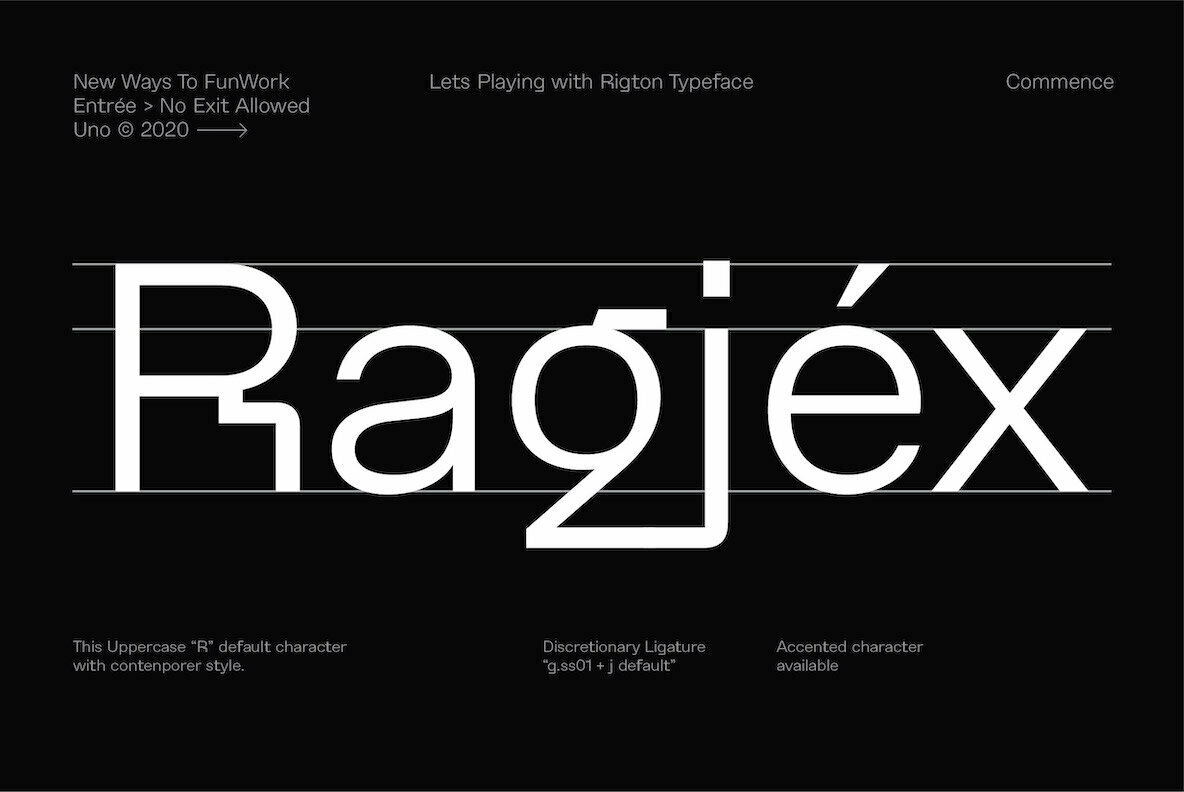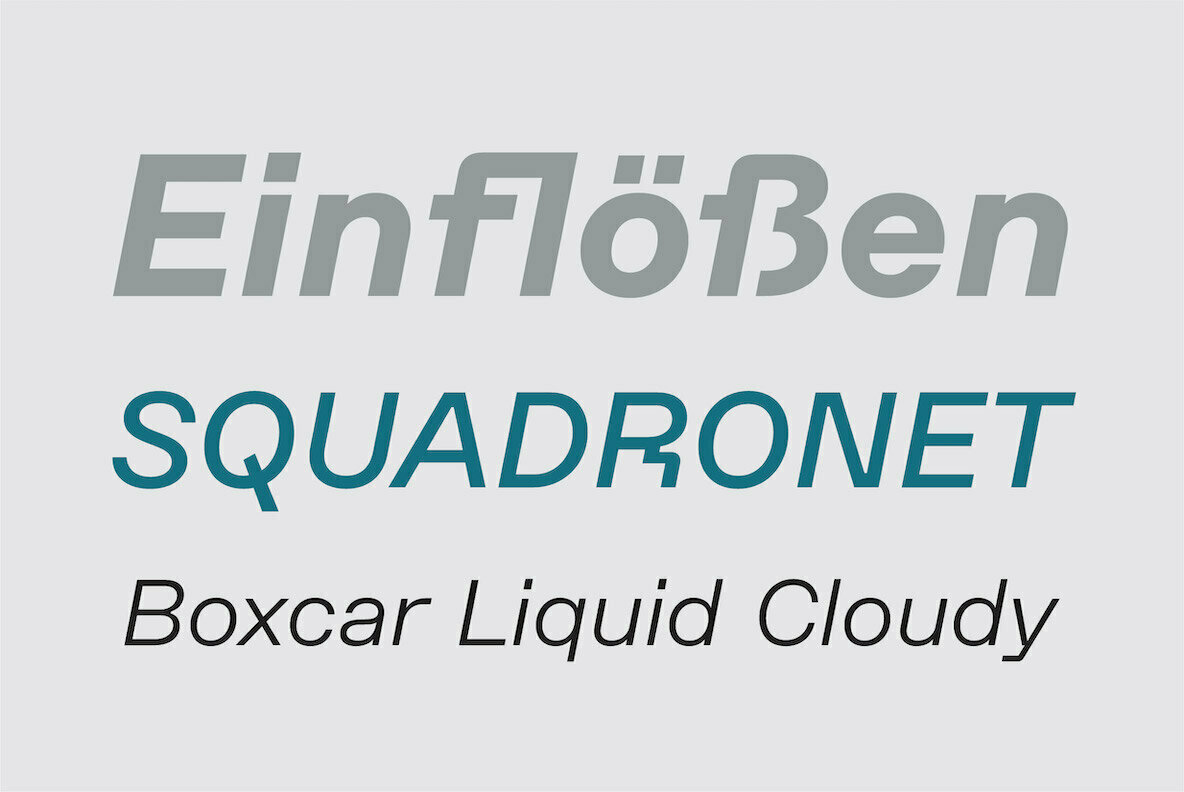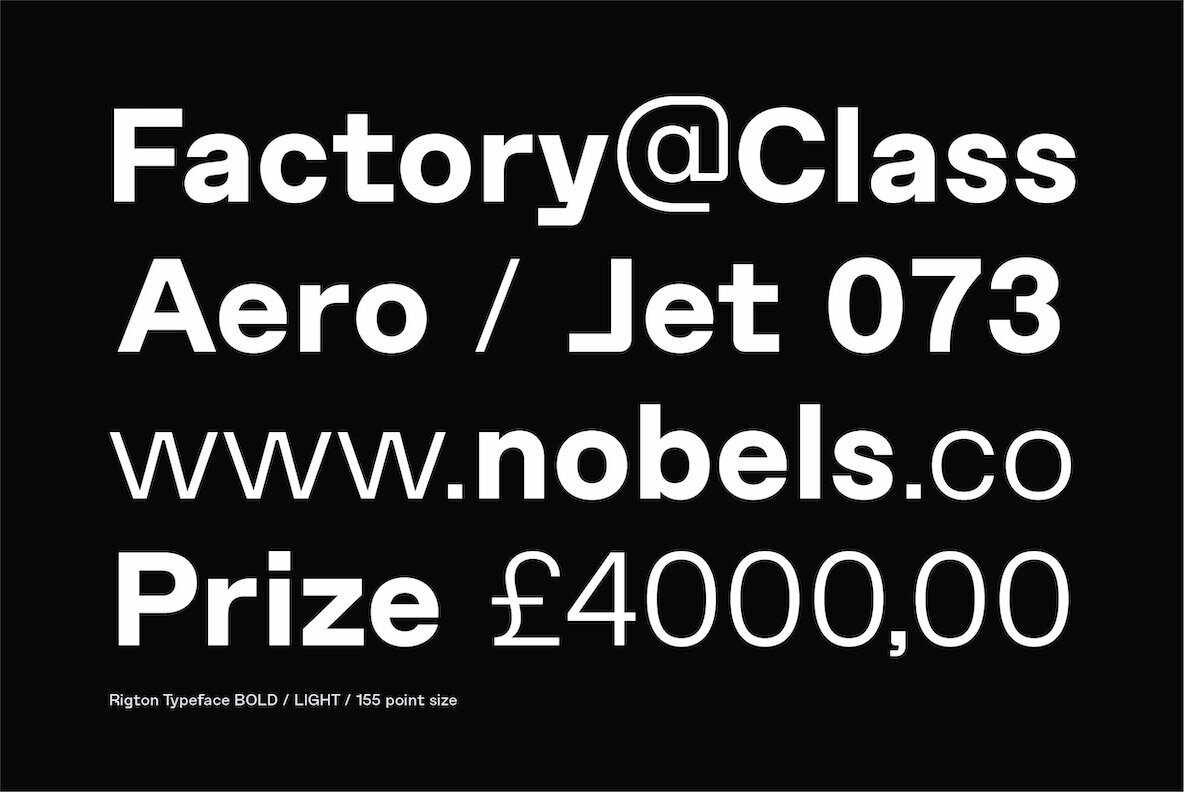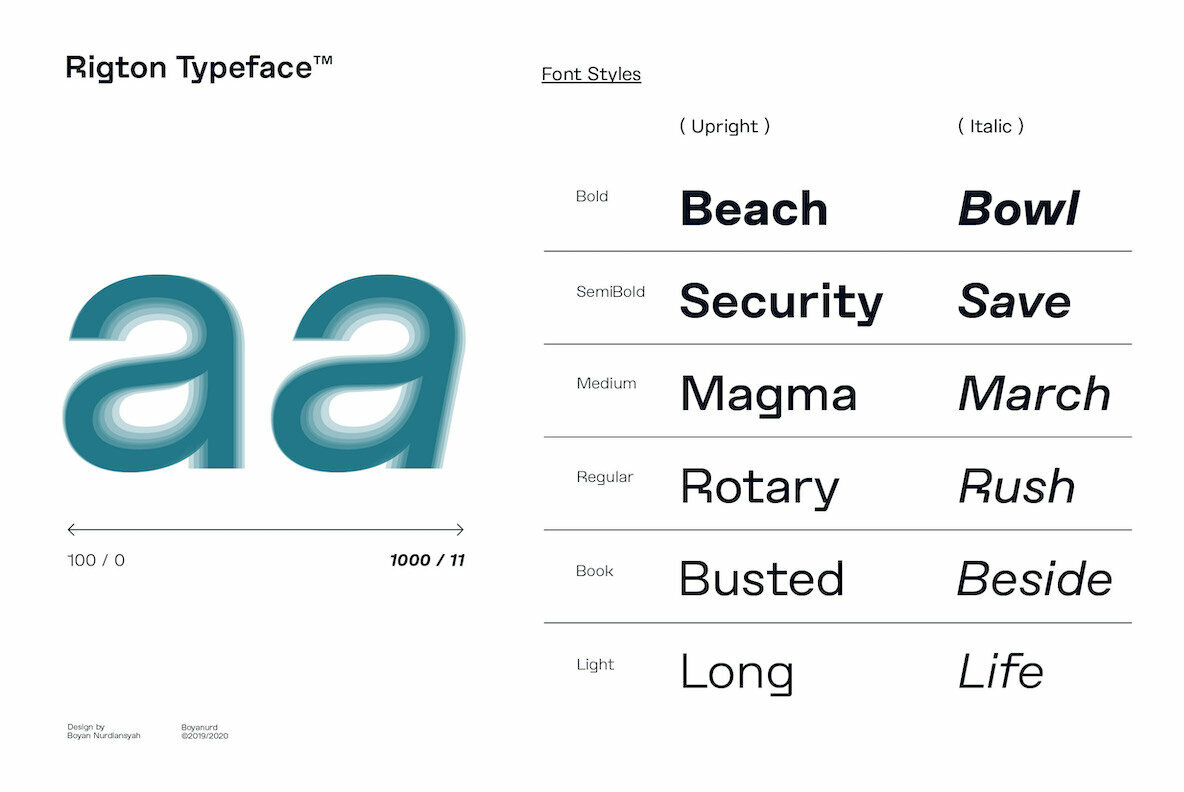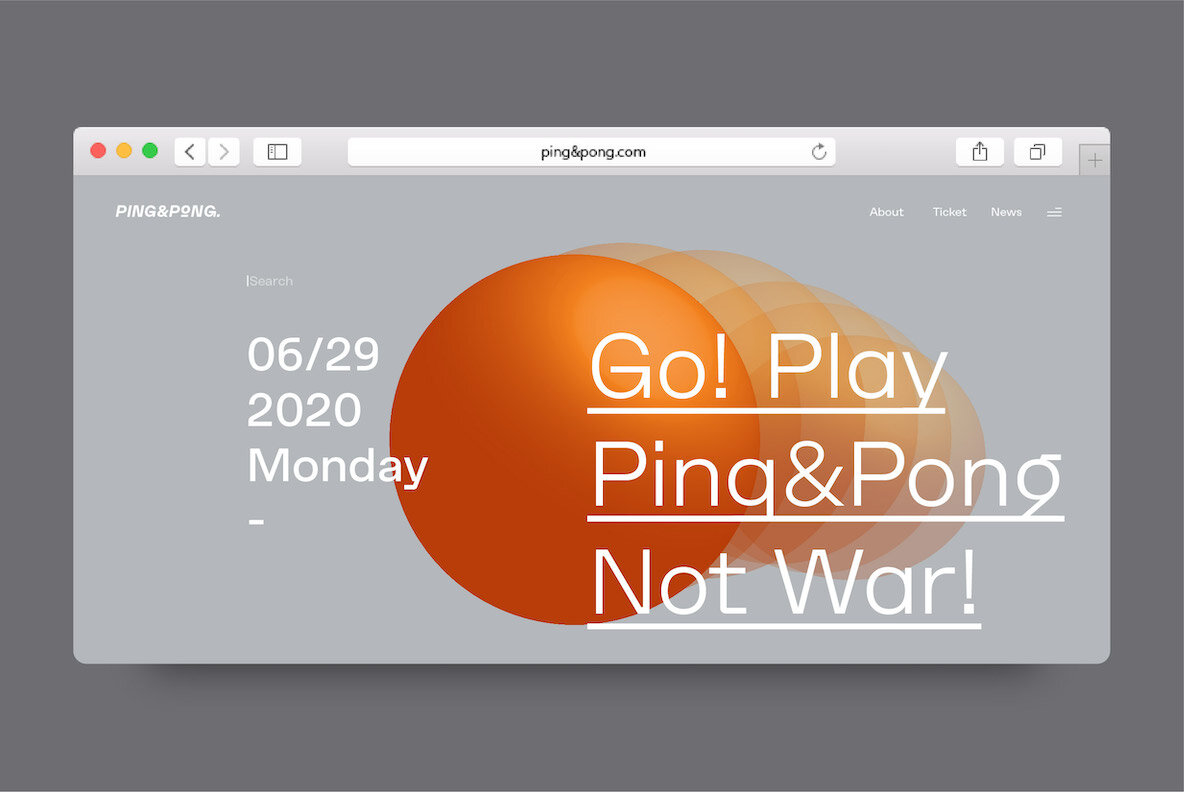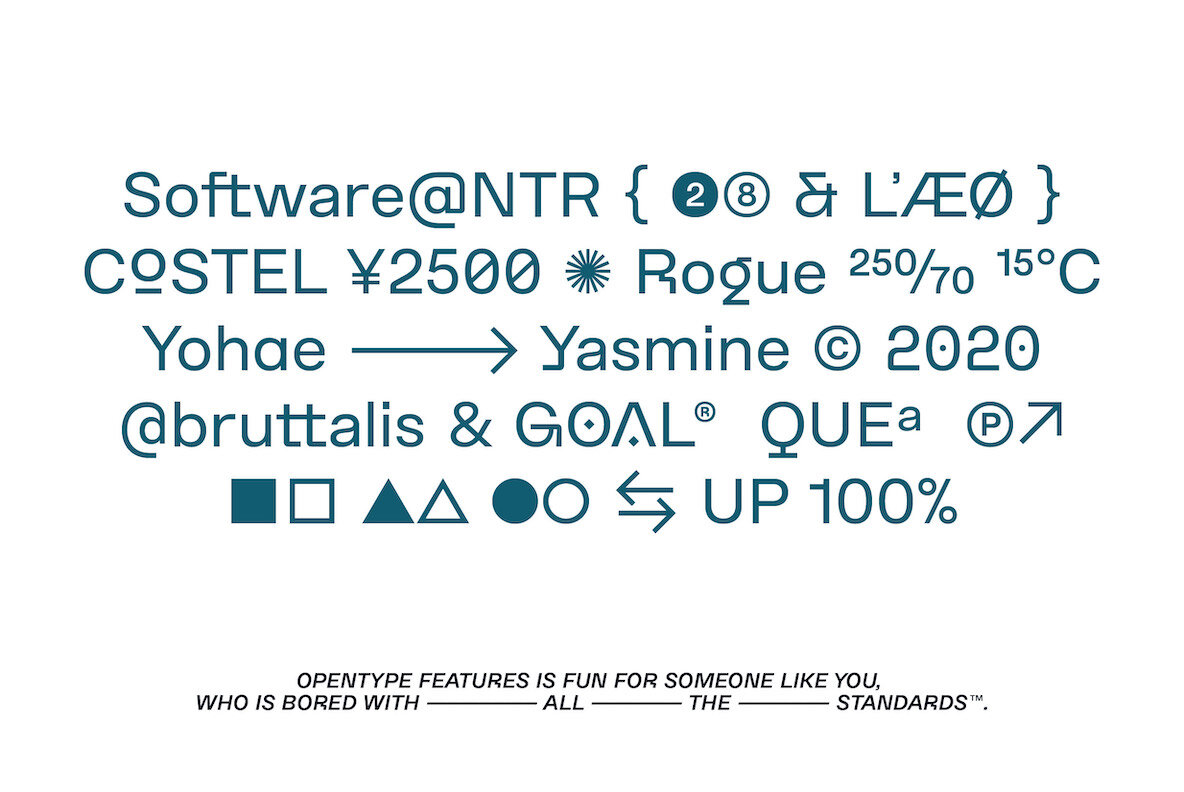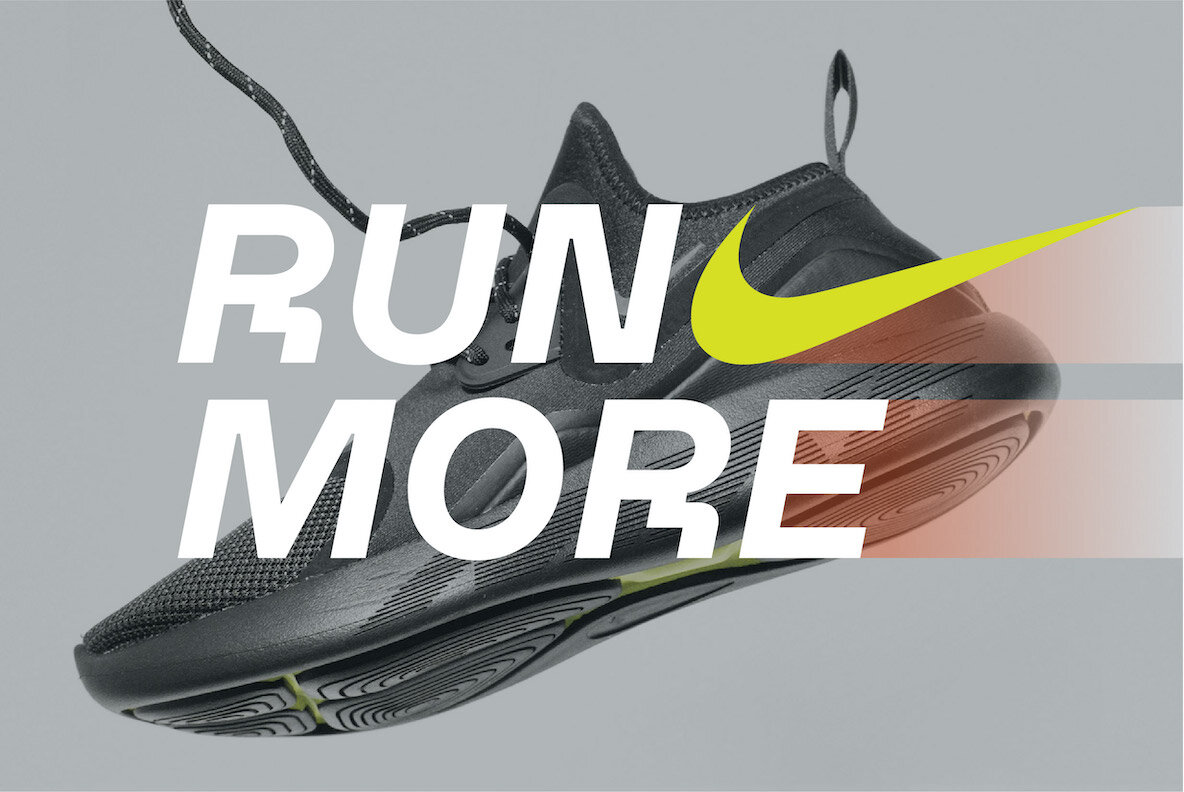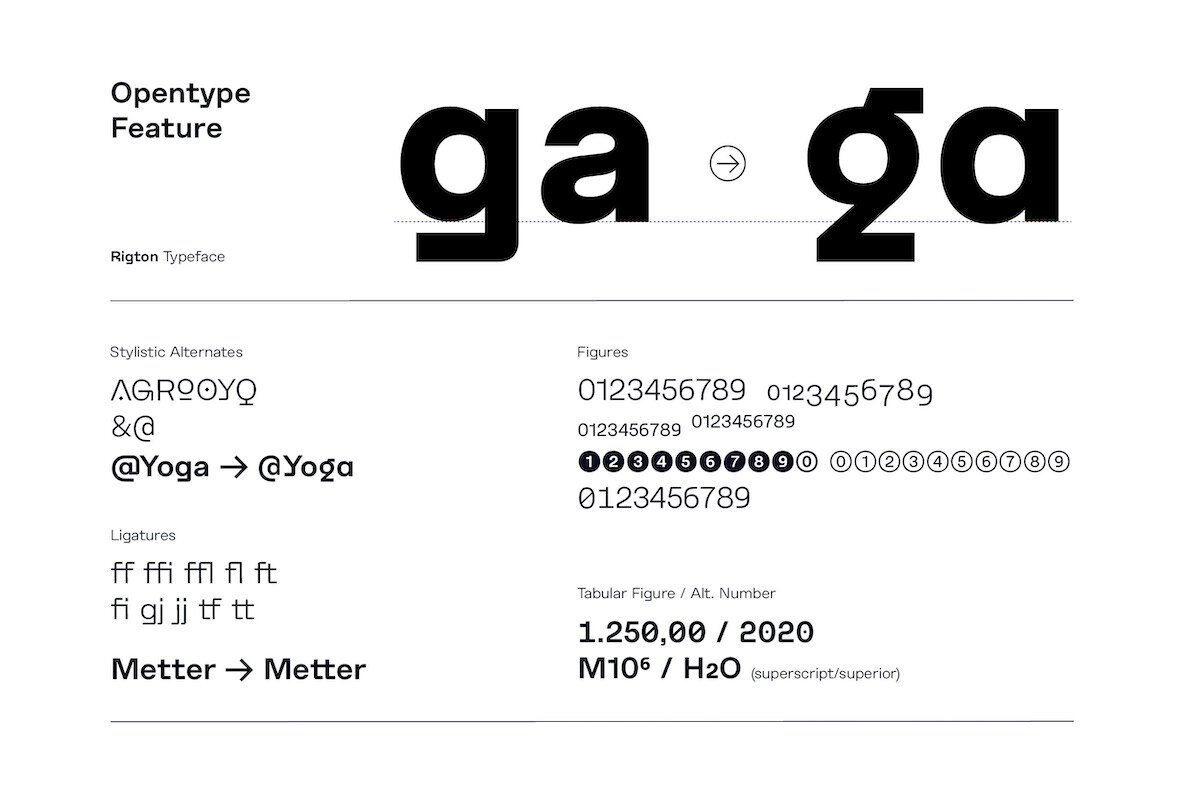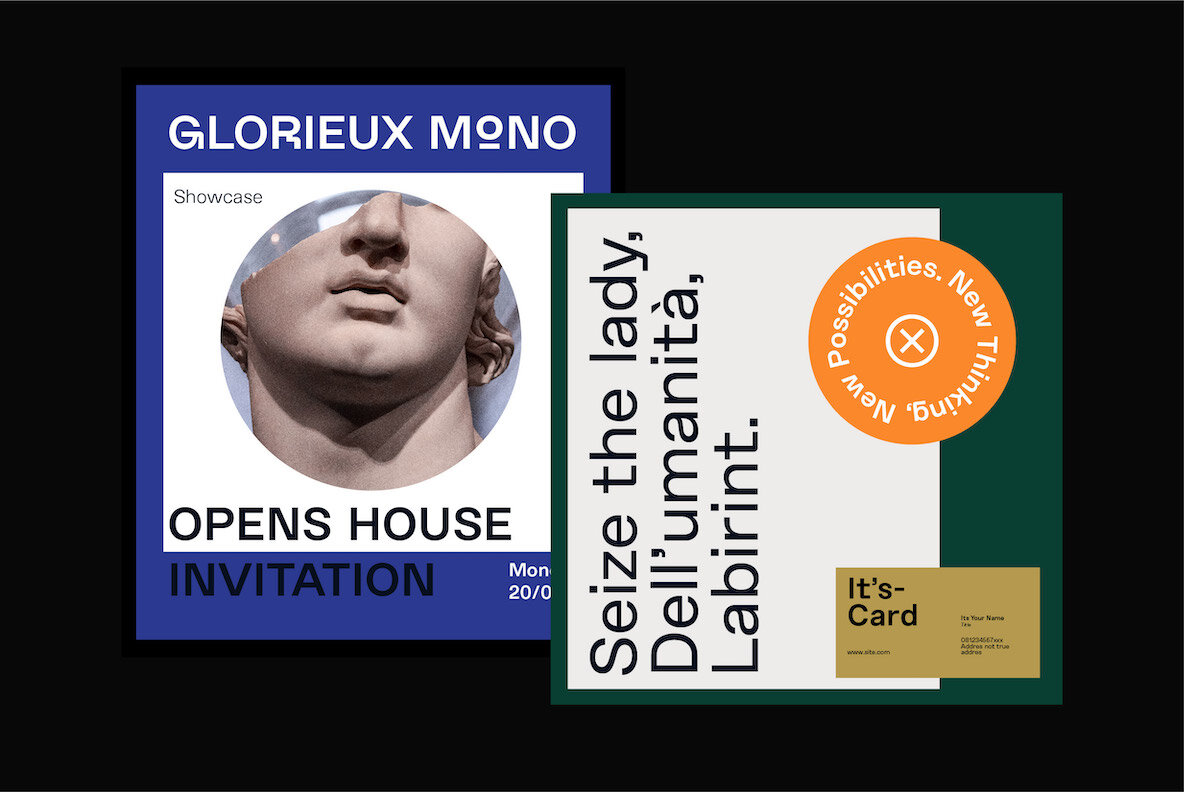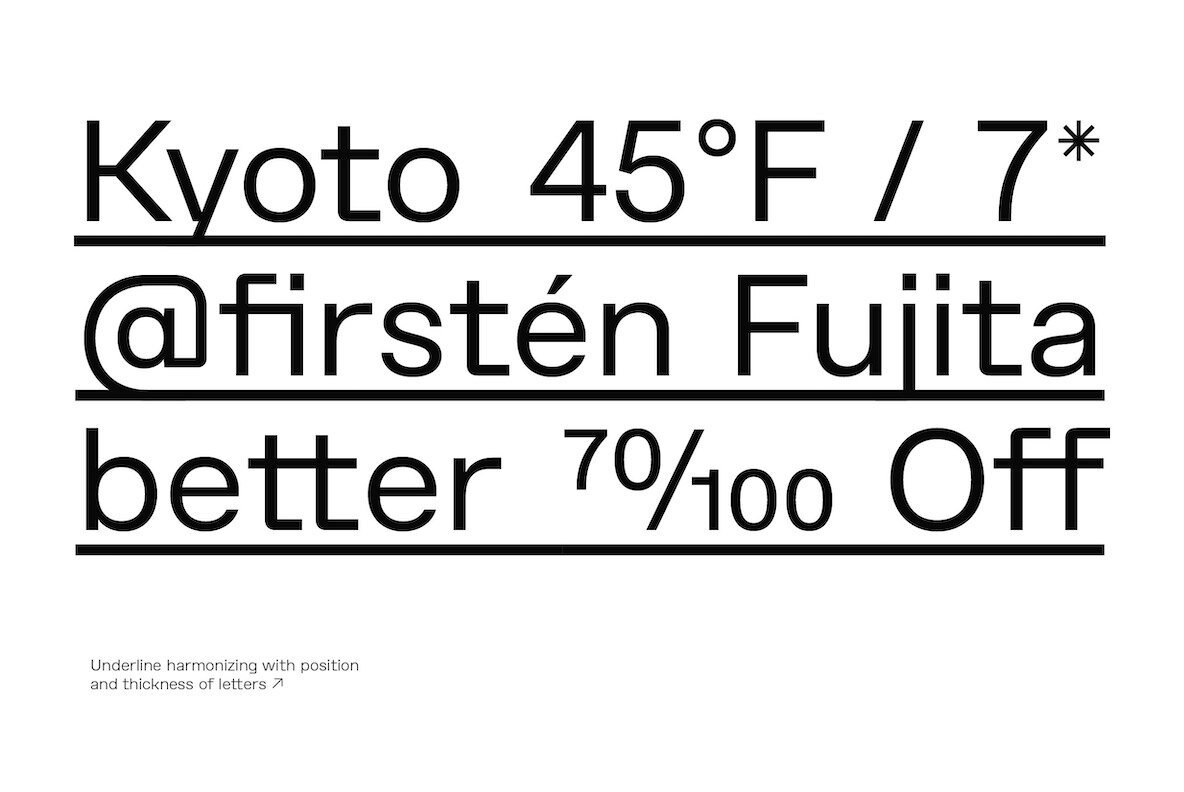
Rigton Font
Rigton is a low-contrast contemporary display typeface, by applying rigid characters and comedy touch as an identity. This family consist of 6 weights with corresponding italics plus variable font, amounting 13 individual fonts style.
The characters set contains complete punctuation, currency signs with several alternates characters, supported by powerful opentype features like ligatures, stylistic alternates, ordinals, fractions, case-sensitive, and numerals figures.